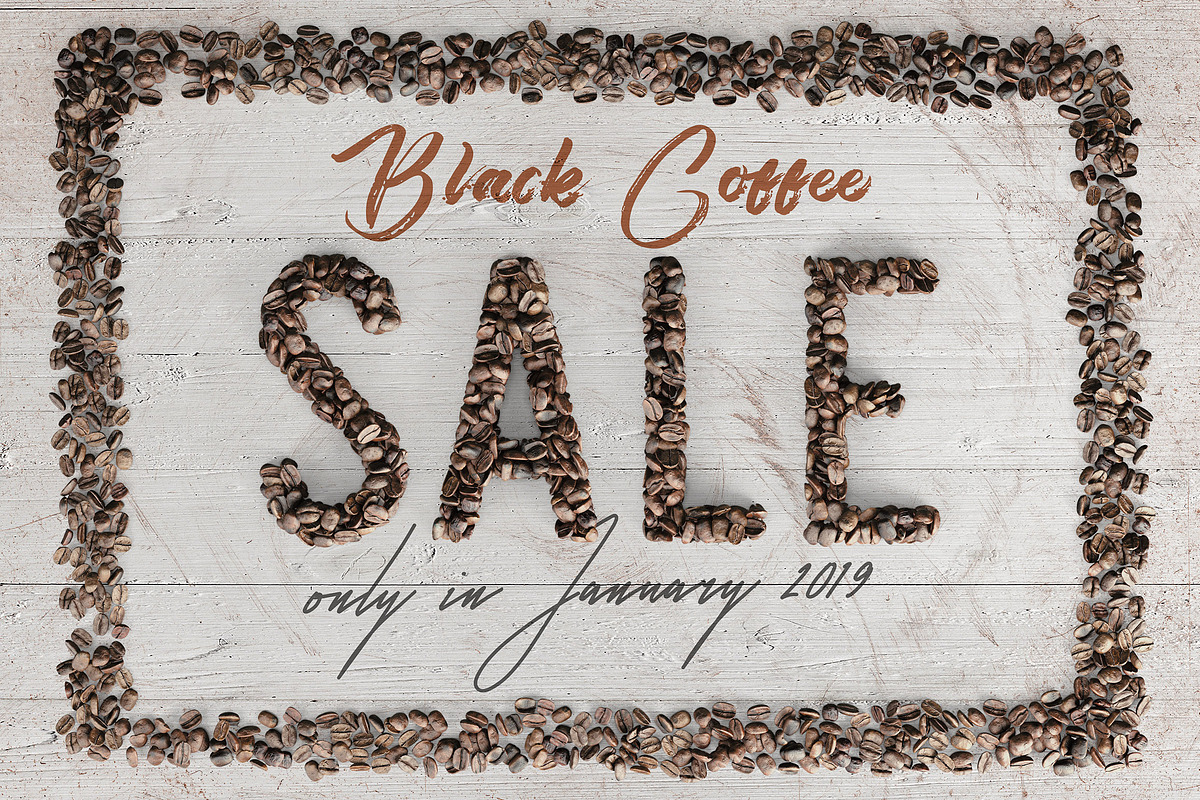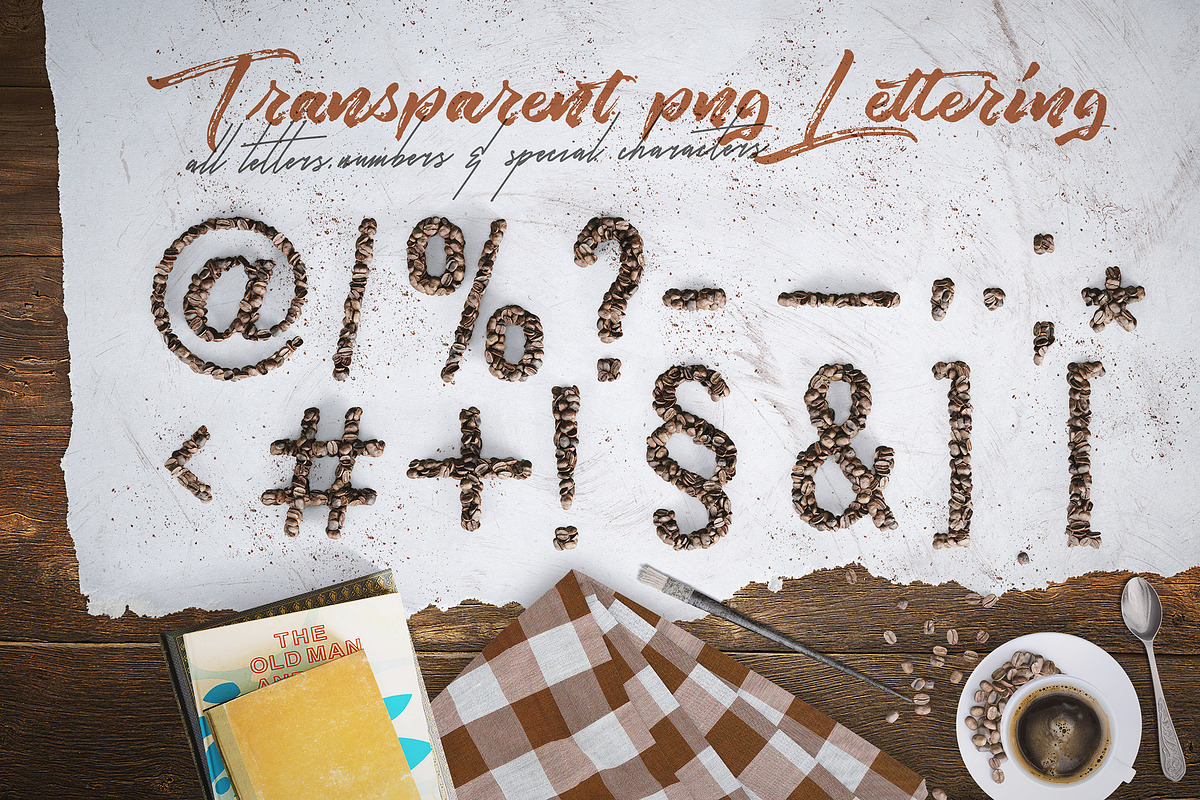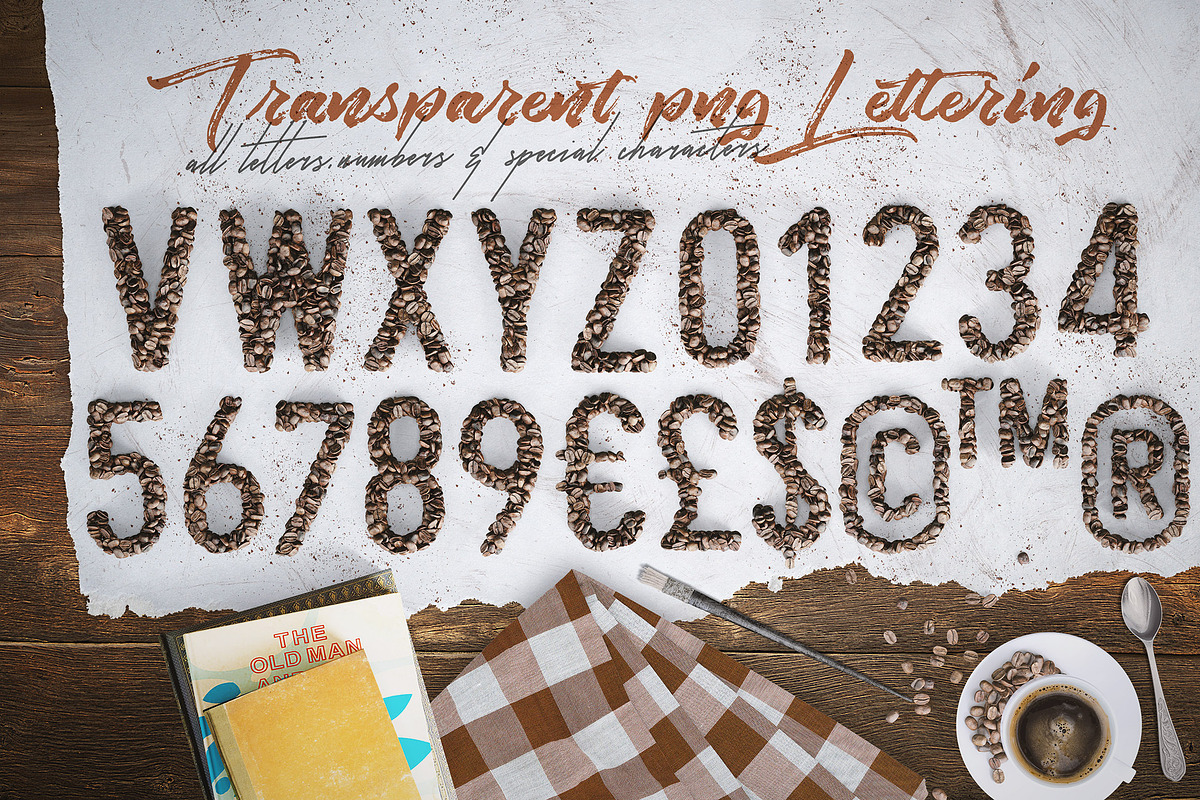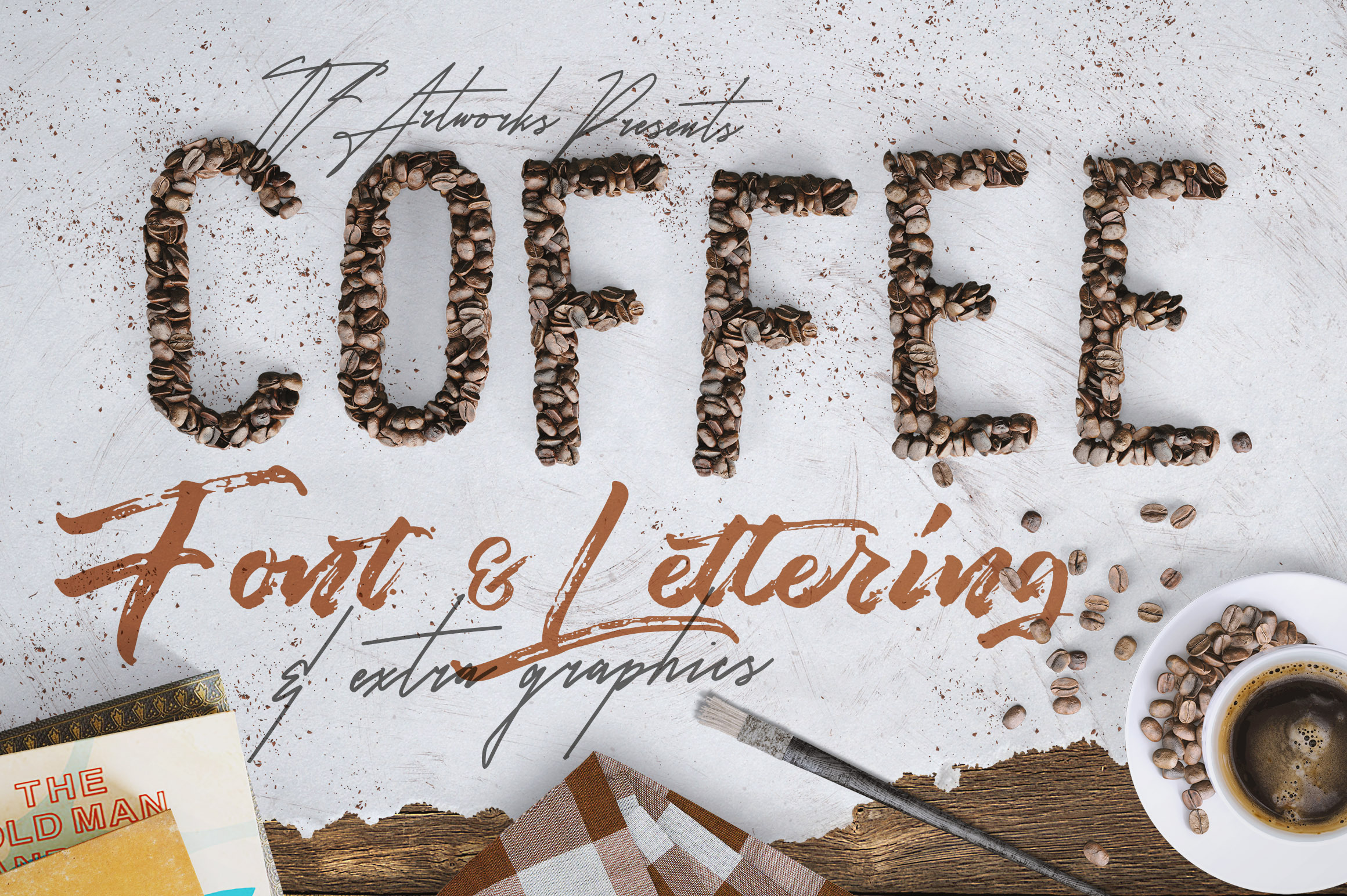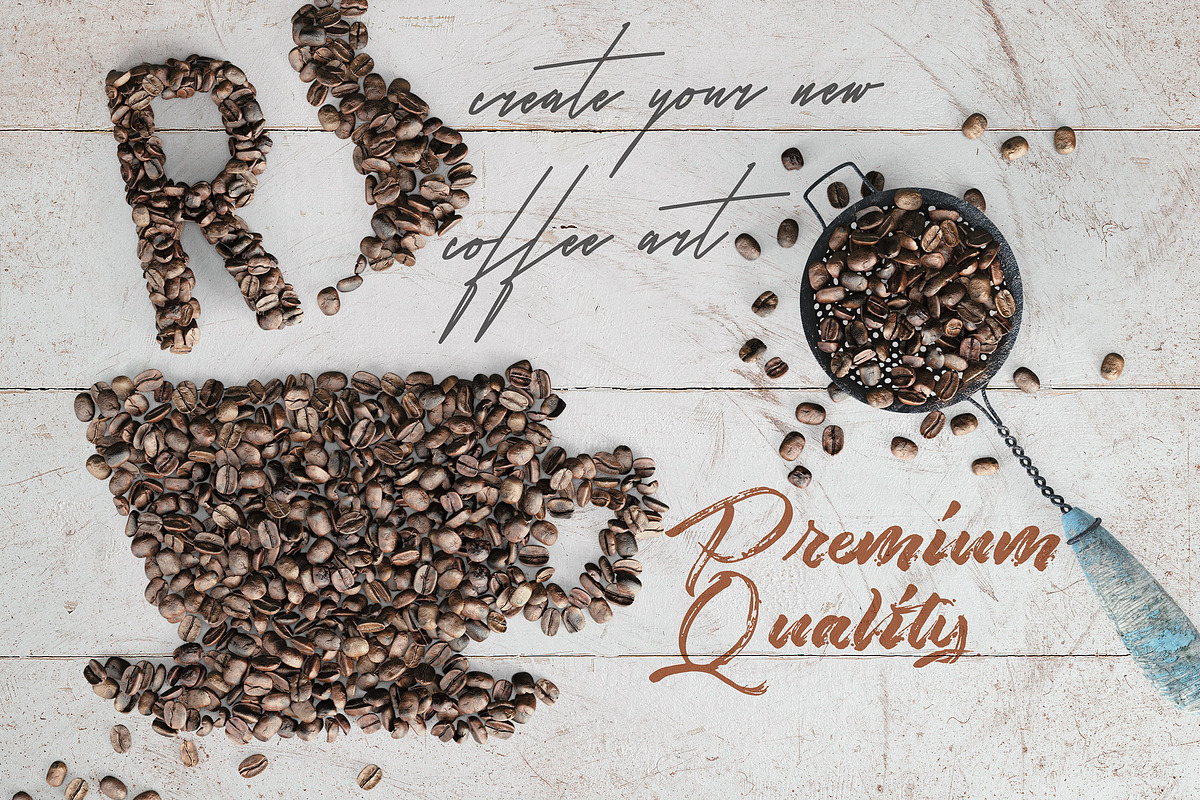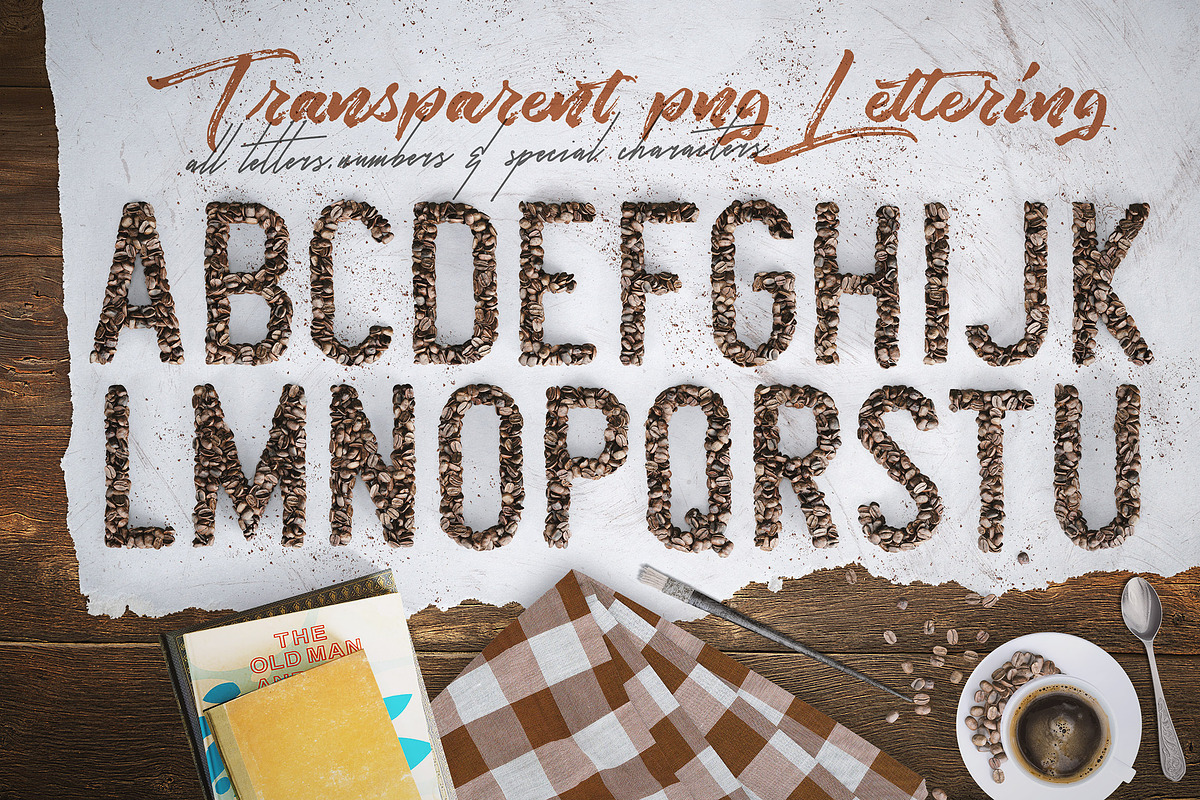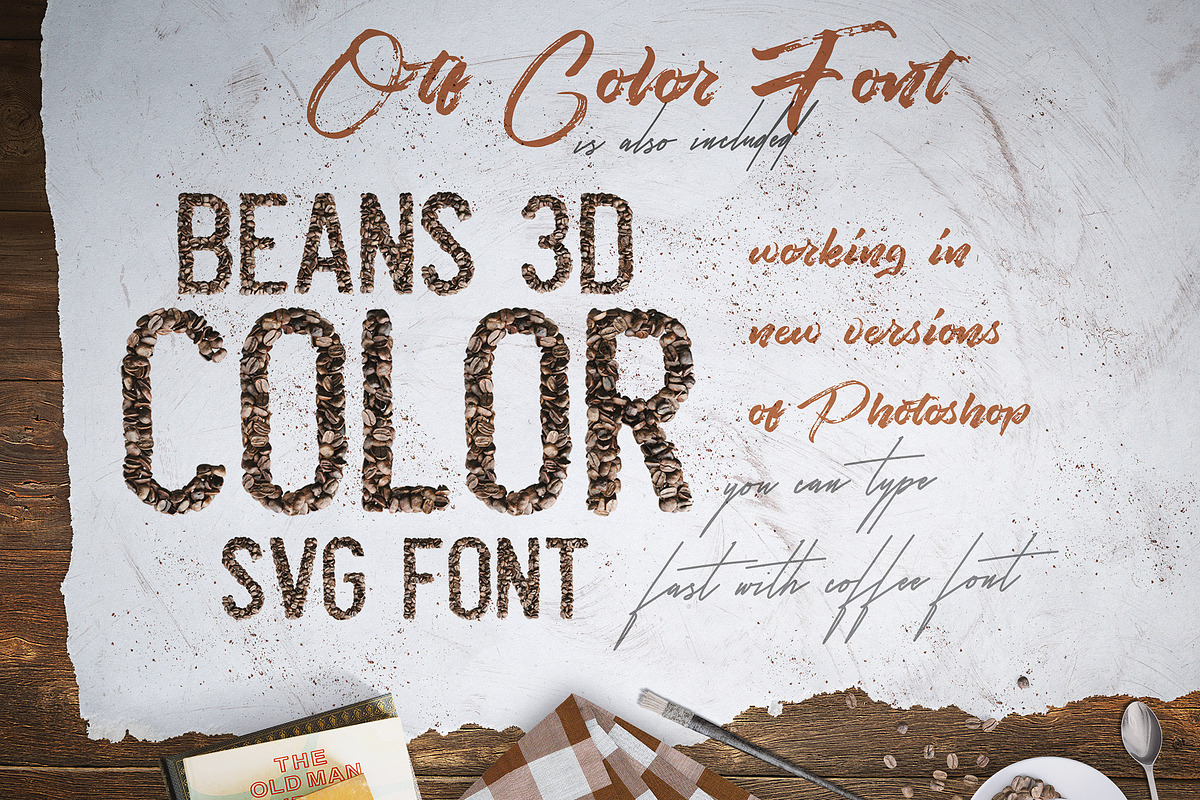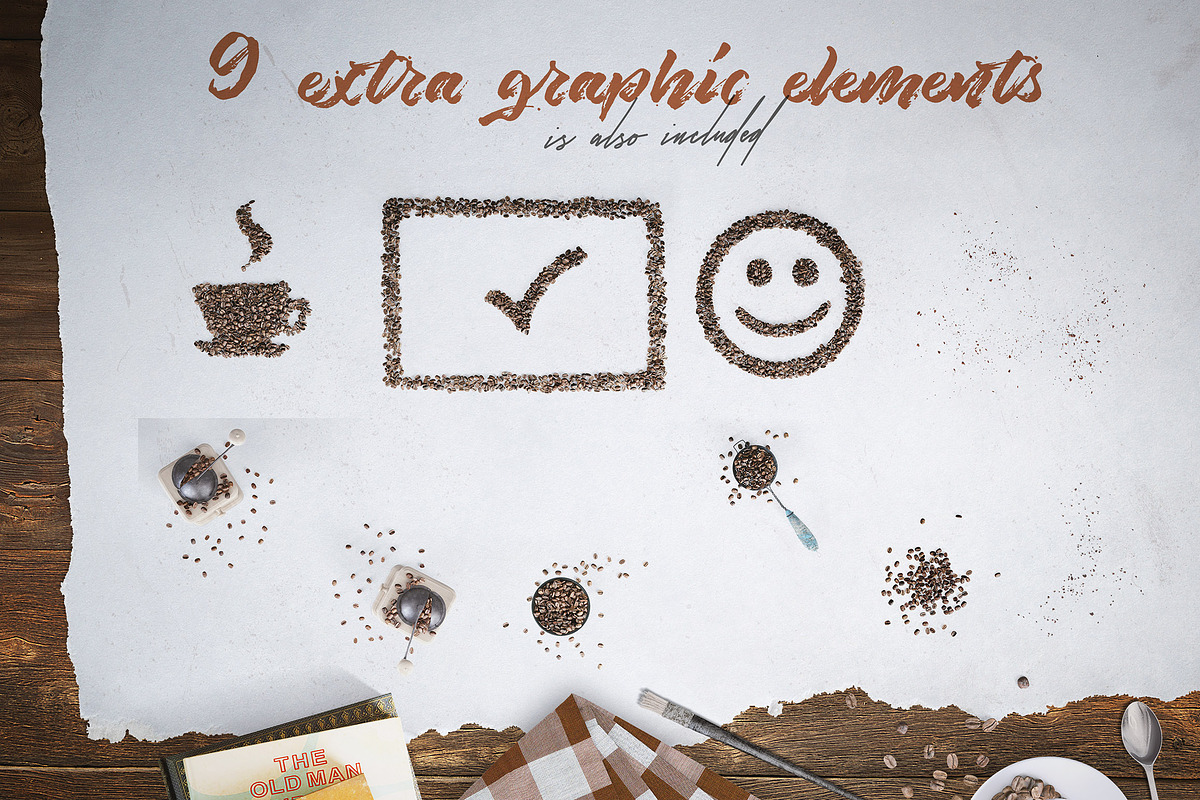
Coffee Beans - Font & Lettering
If you are looking for some realistic coffee beans style lettering & graphic ellements then you are at the right place because here you will get 3D style lettering, color font & elements for your new projects with coffee style. These graphics are in hi-res transparent PNG formats so all are great for your new web design or any print design projects. Enjoy ;)
Just drag & drop the different elements & letters to create your own custom scenes and typography composition.